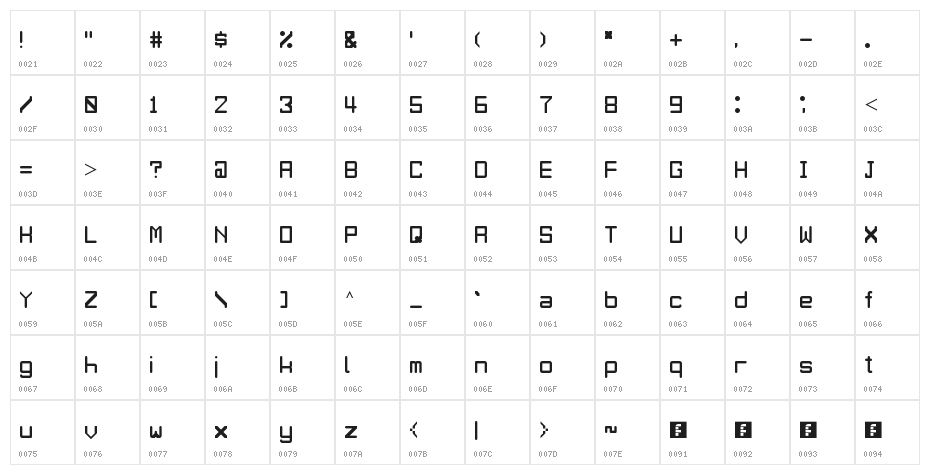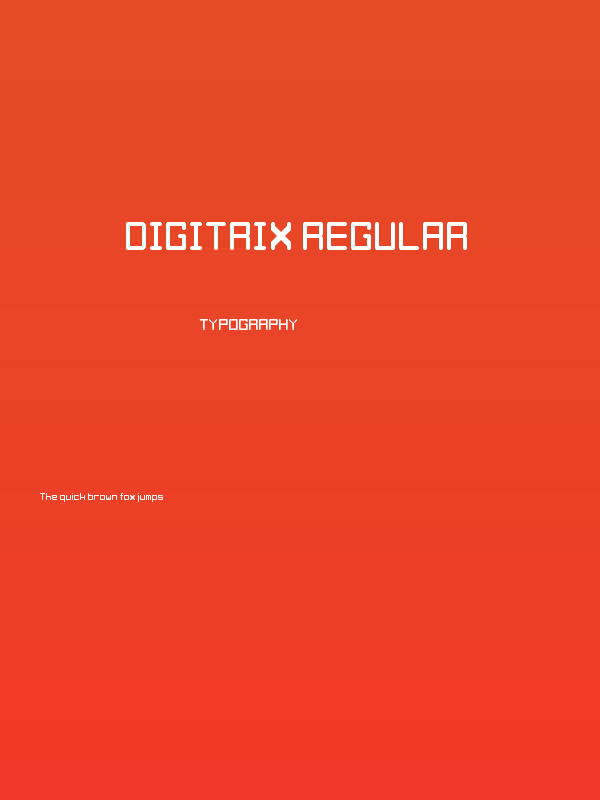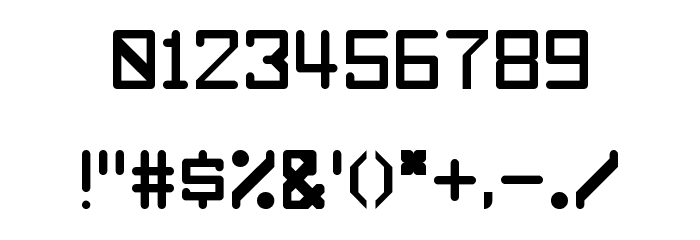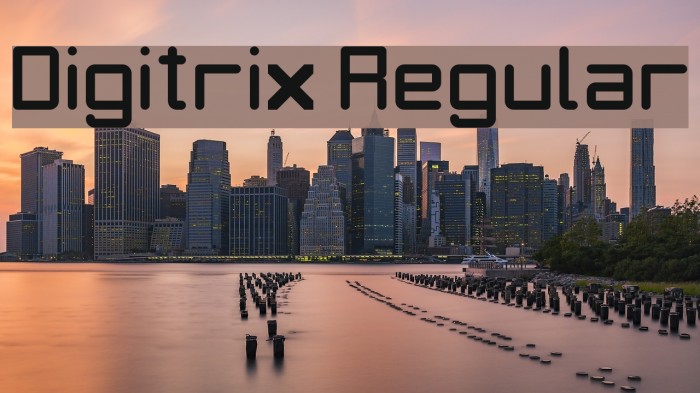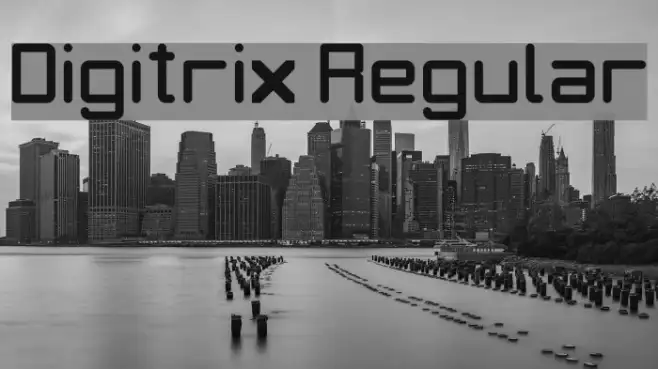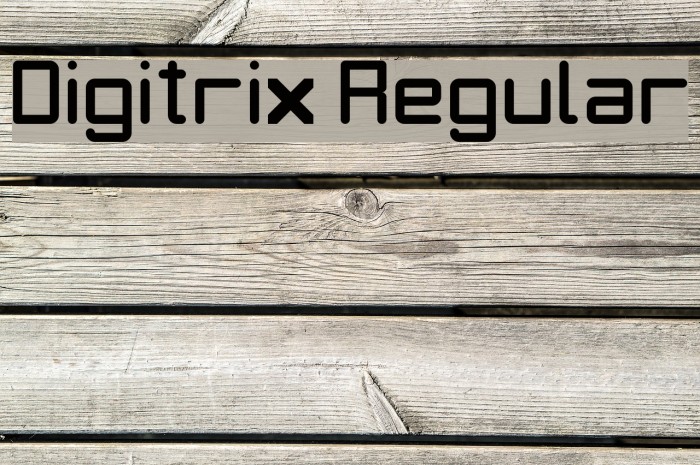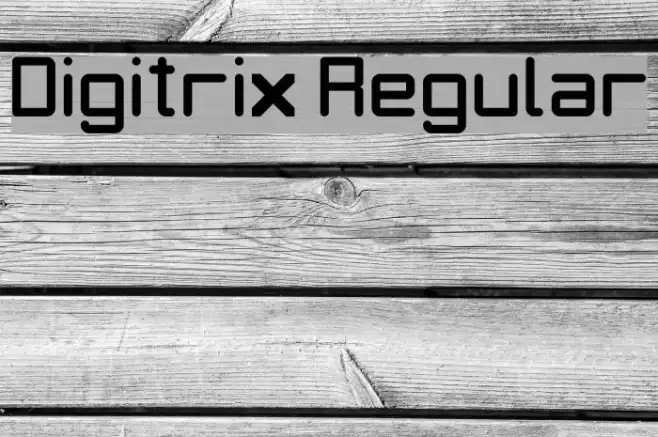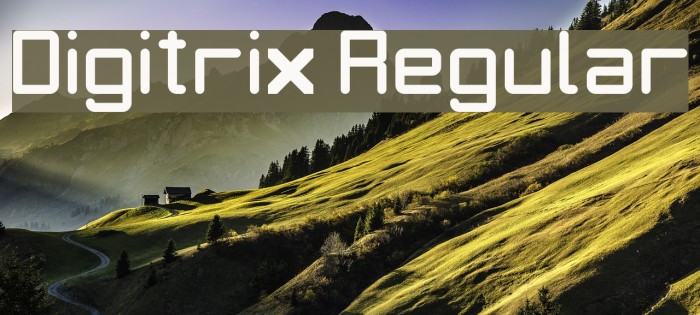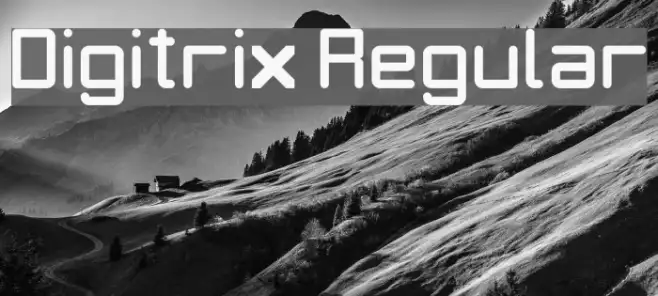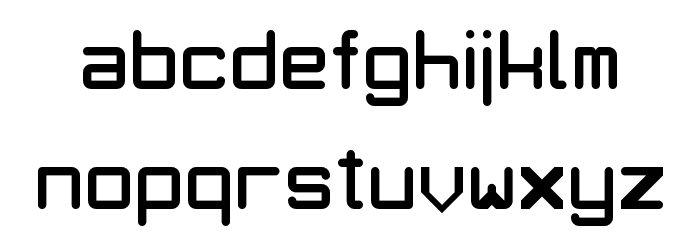
Digitrix Regular Font
Digitrix Regular Description
This font features a geometric and modern design with a digital, tech-inspired aesthetic. The characters are constructed with uniform line thickness, giving it a monospaced appearance, although it is not strictly monospaced. The edges are rounded, providing a softer look despite its digital feel. The uppercase and lowercase letters maintain a consistent style, with the lowercase mirroring the uppercase in form and structure. The numerals and special characters follow the same design principles, ensuring a cohesive appearance across all glyphs. This font is ideal for projects that require a futuristic or technological theme.
| Proposed Projects | Ideal for digital interfaces, tech branding, video game design, and futuristic-themed projects. |